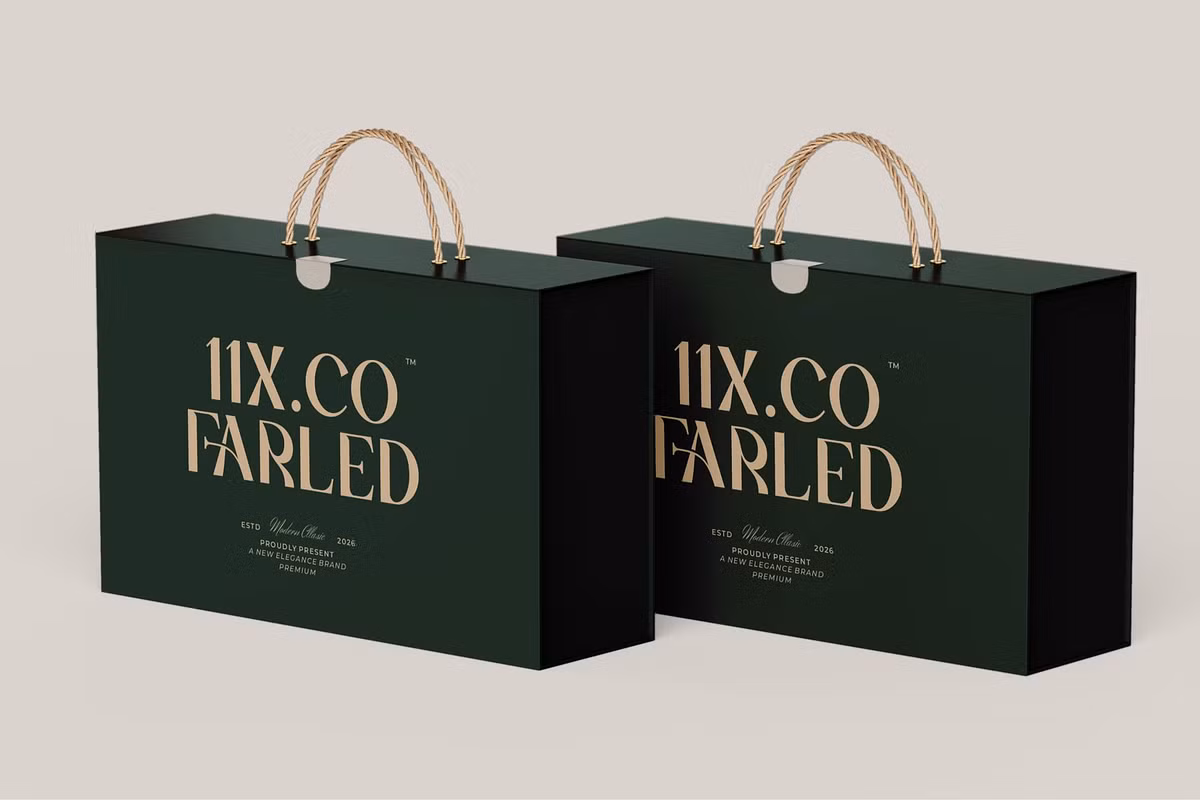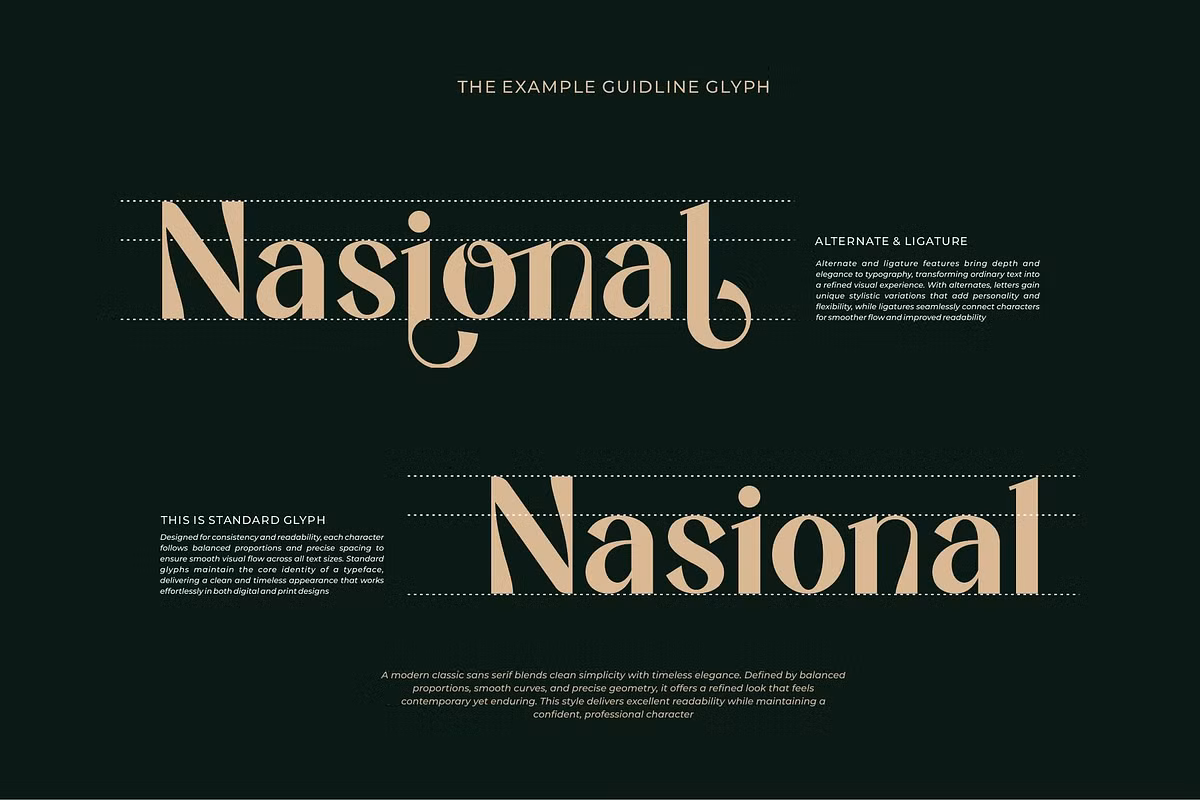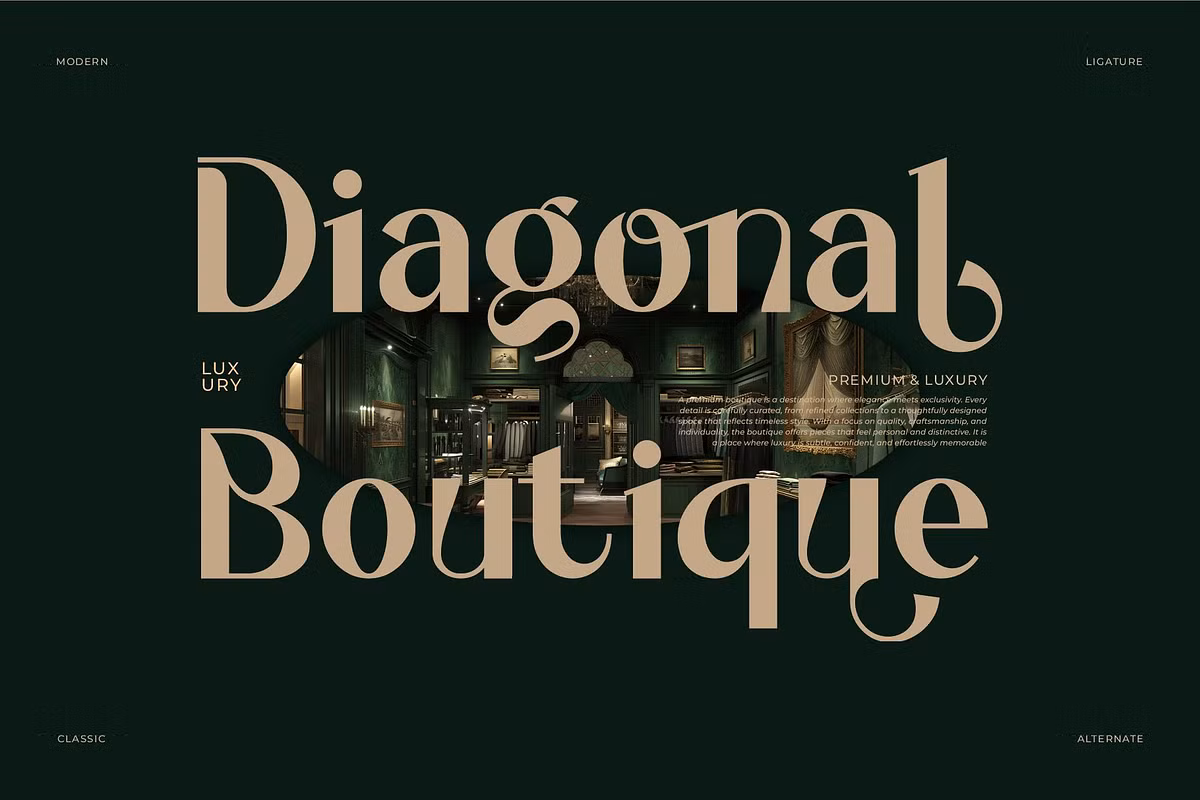
Kutenh: Modern Classy Sans Serif Font for Elegant Design Projects
Kutenh is a really nice, modern font that doesn’t have the little lines at the ends of the letters. It’s been carefully made to help designers create great logos and brands. The way it looks is fancy and elegant, which makes it stand out.
Kutenh has a smooth, stylish feel to it, making it a great choice for anyone working on a creative project. Its simple, yet classy design makes it perfect for designers who want to make something that looks amazing. Whether you’re working on a logo, a brand, or something else, Kutenh is a great font to use because it’s easy to read and looks really good. It’s a great tool for designers who want to make something that’s both beautiful and effective.
Design Style of Kutenh
Kutenh has a really modern and elegant look, thanks to its sans serif style. The lines are clean and simple, which makes it easy to read and also gives it a touch of sophistication.
Because it’s so simple, Kutenh can fit in with lots of different design styles – whether you’re creating a high-end brand or just a fancy invitation. It’s a great choice when you want something that looks sleek and contemporary. The minimalist approach of Kutenh is what makes it so versatile, and it’s perfect for designers who want to create something that’s both stylish and easy to understand.
Kutenh also has some really cool ligatures that make it look special. These ligatures help the text flow better and give your designs a bit of character. This means Kutenh is a font that doesn’t go out of style, but still looks modern and fresh, so you can use it for lots of different things.
Character Sets and Features
Kutenh is designed with versatility in mind, featuring a comprehensive character set that includes both uppercase and lowercase letters, as well as numbering and punctuation. This extensive character support ensures that you can express a wide array of ideas and messages in your designs.
Use Cases for Kutenh
Kutenh is incredibly versatile, making it suitable for a wide range of applications. Here are some key use cases for this elegant font:
- Branding and Logo Design: Kutenh’s classy aesthetic makes it an ideal choice for creating memorable logos and branding elements that require a touch of sophistication.
- Invitations and Greeting Cards: The elegant design of Kutenh lends itself beautifully to invitation cards for weddings, parties, and other special occasions, creating an inviting atmosphere.
- Movie Titles and Credits: Its modern look adds a stylish touch to films, making titles and credits stand out.
- Business Cards: Kutenh’s professional appearance ensures that your business cards leave a lasting impression, making it a great choice for networking.
- Book Titles and Covers: This font can enhance the appeal of book titles, making them stand out on shelves and in online marketplaces.
Pairing Suggestions for Kutenh
When it comes to pairing fonts, Kutenh shines with its elegant and modern style. Here are some suggestions for complementary fonts to enhance your designs:
- Serif Fonts: Pair Kutenh with a classic serif font like Times New Roman or Georgia for a stunning contrast that combines modernity with tradition.
- Script Fonts: For a more whimsical approach, consider pairing Kutenh with a flowing script font like Great Vibes or Pacifico, which adds a touch of elegance to any design.
- Other Sans Serifs: For a clean and cohesive look, combine Kutenh with another sans serif font like Montserrat or Open Sans.
You can use Kutenh for lots of things, like making logos, invitations, or business cards. It’s a great choice if you want to make your designs look sophisticated and stylish. If you use Kutenh in your next design project, you’ll see how it can make a big difference and help you stand out. The elegant design of Kutenh makes it perfect for anyone who wants to make a good impression with their branding and design projects.